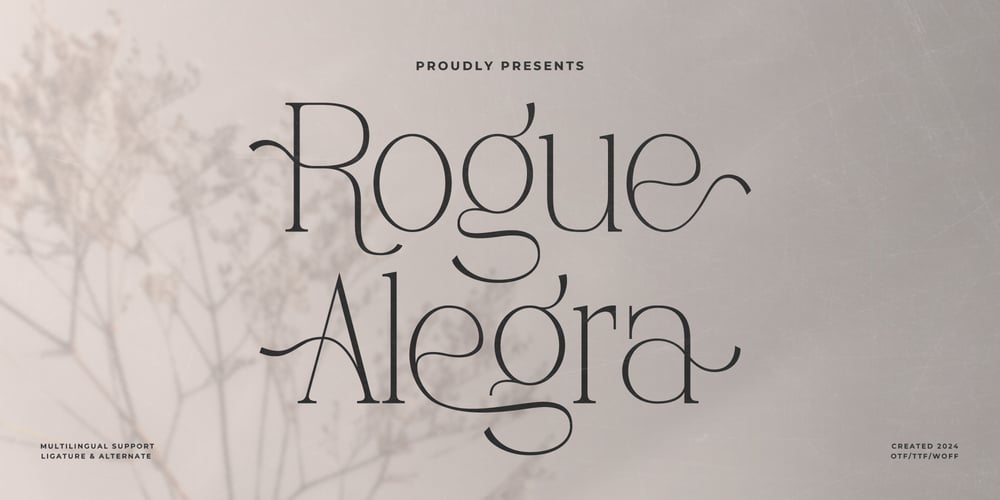
Rogue Alegra Font Family was designed by Dede Nugraha and published by Denustudio. Rogue Alegra contains 2 styles and family package options. Rogue Alegra | Display Classic Serif, from Denustudios, suitable for any projects such as: logos, branding projects, homeware designs, product packaging, mugs, quotes, posters, shopping bags, t-shirts, book covers, name card, invitation cards, greeting cards, label, photography, watermark, special events, and all your other lovely projects that need a Display Classic Serif taste.===========================================================================What’s Included : Regular and Italic Web Font Standard glyphs Alternate and Ligature Works on PC & Mac Simple installations Accessible in the Adobe Illustrator, Adobe Photoshop, Adobe InDesign, even work on Microsoft Word and Other Software. PUA Encoded Characters – Fully accessible without additional design software. Fonts include multilingual support Hope you enjoy with our font!